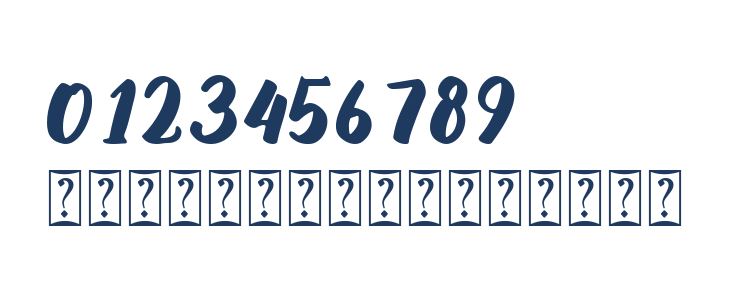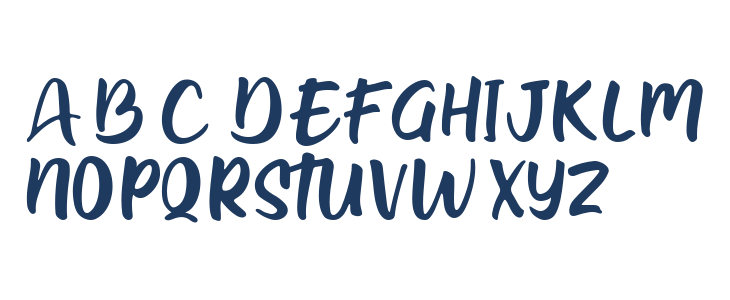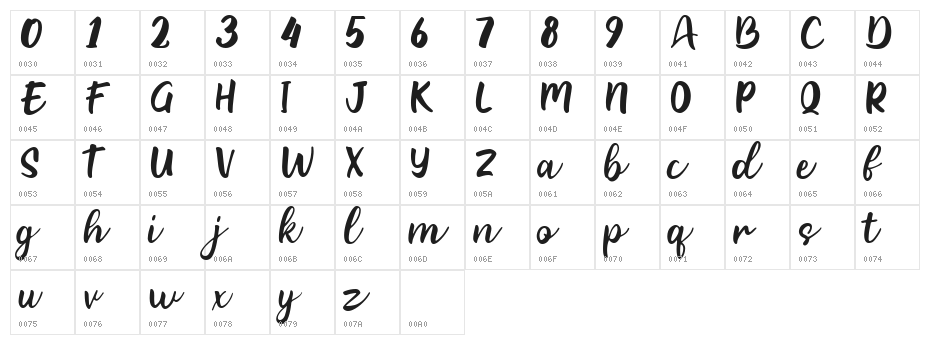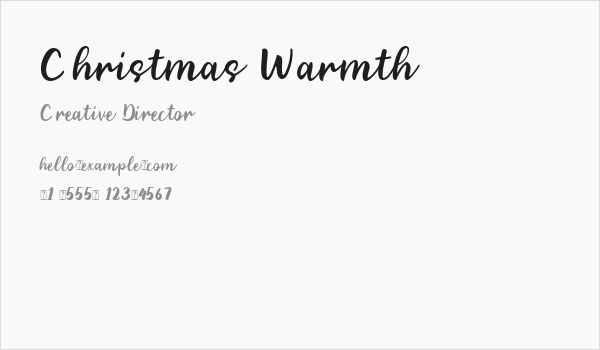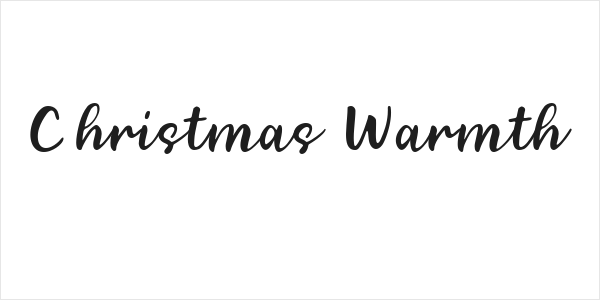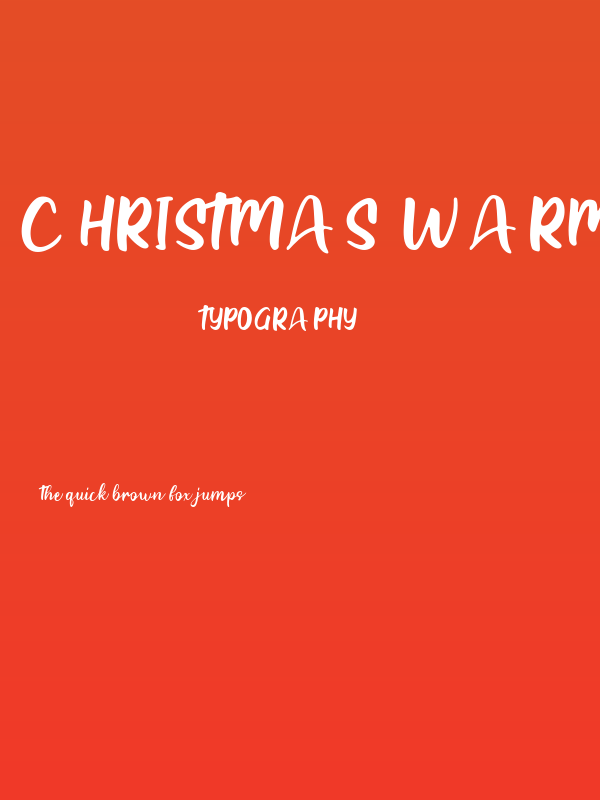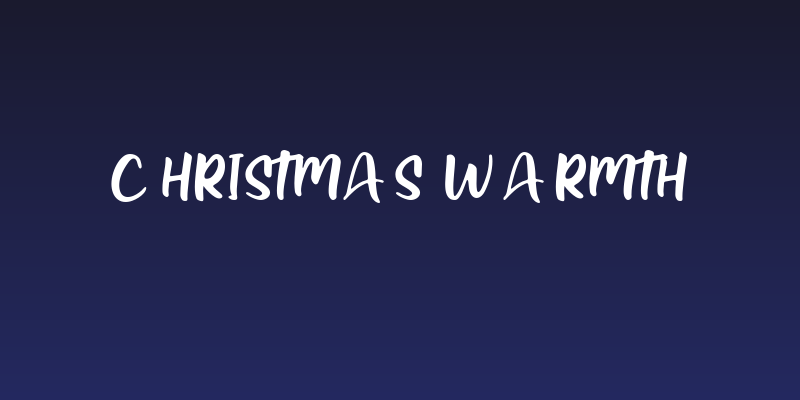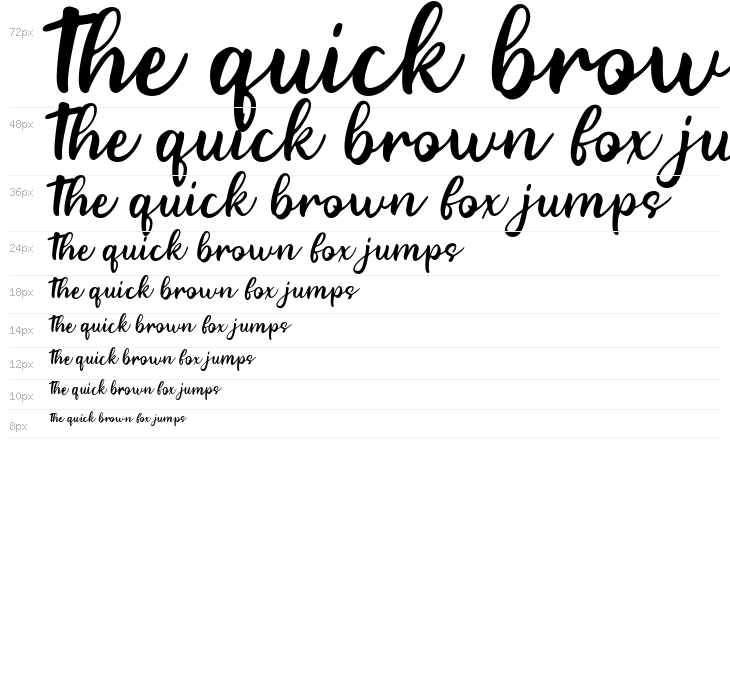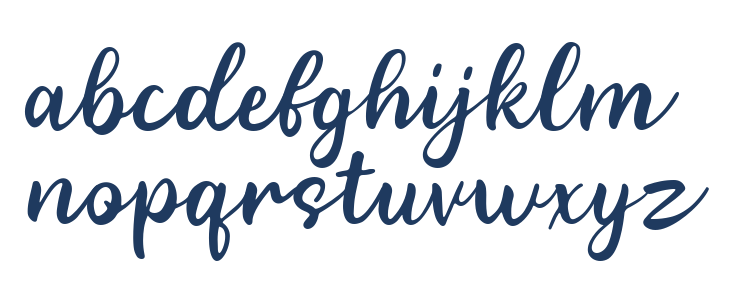
Christmas Warmth Font
Christmas Warmth Description
A playful, brush-script typeface with smooth, rounded strokes and a handwritten feel. The characters are bold and slightly slanted, with varying stroke thickness and a casual, friendly appearance.
| Overall Style | Decorative, Handwritten, Warm |
| Use Case | Headlines, Logos, Greeting cards, Invitations |
| Proposed Projects | Greeting cards, holiday invitations, branding, social media graphics, posters. |